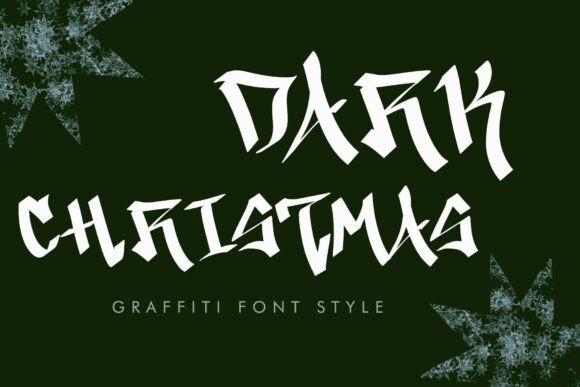
The Magic of Dark Christmas Font: Unleashing Your Creative Spirit
As the snowflakes start to fall and the festive lights begin to twinkle, many of us find ourselves swept up in a whirlwind of creative energy. We want to express the joy, wonder, and magic of the season in a way that’s truly unique and memorable. For designers, this can be a thrilling challenge – and one that the “Dark Christmas Font” is perfectly equipped to help you tackle.
This enchanting Christmas graffiti font is more than just a pretty face – it’s a versatile tool that’s packed with features, from uppercase and lowercase letters to numbers, punctuation, and multilingual support. Whether you’re working on a festive banner, a spooky Halloween poster, or a springtime logo, the “Dark Christmas Font” is the perfect companion for your creative journey.
Dark Christmas Font Key Features
- Font Family: Dark Christmas is a unique, custom-designed font, making it ideal for special occasions like Christmas.
- Resolution: Designed with high-resolution capabilities, ensuring clear and crisp display on high-resolution screens and prints.
- Unique Characteristics: The font features intricate, hand-drawn designs with a vintage feel, adding a touch of elegance and sophistication to any project.
Designer Review: Dark Christmas Font
At first glance, the Dark Christmas Font has a lot of potential to add some festive cheer to any design project. ✨ The font’s distressed, handwritten feel gives it a unique and eye-catching quality that’s perfect for holiday-themed projects.
The font comes in a range of weights and styles, which is a definite plus. This allows designers to choose the perfect fit for their project’s tone and aesthetic. ✨ The font also includes a range of punctuation and special characters, which is a nice touch.
While the Dark Christmas Font has some great qualities, there are a few limitations to be aware of: ⚠️ The font’s readability can be a bit of an issue, especially at smaller font sizes. This may make it difficult to use in certain applications, such as body text or headlines.
Another limitation is the font’s lack of linguistic support. This means that it may not be suitable for projects that require a font with a wide range of language support.
In conclusion, the Dark Christmas Font is a great choice for designers looking to add a unique and festive touch to their projects. While it may have some limitations, its unique feel and range of styles make it a great option for holiday-themed designs. Just be sure to test it thoroughly before committing to a project.
- Unique, distressed handwritten feel
- Range of weights and styles
- Includes punctuation and special characters
- May have readability issues at smaller font sizes
- Lack of linguistic support
Dark Christmas Font Practical Application Guide
Tips for Getting the Most Out of the Dark Christmas Font
Experiment with different font sizes, colors, and styles to create unique and eye-catching holiday designs.
Use the font in combination with other festive elements, such as snowflakes, holly, and mistletoe.
Consider using the font in a distressed or vintage style to add a unique touch to your designs.
The Dark Christmas Font is perfect for creating festive holiday designs, such as: